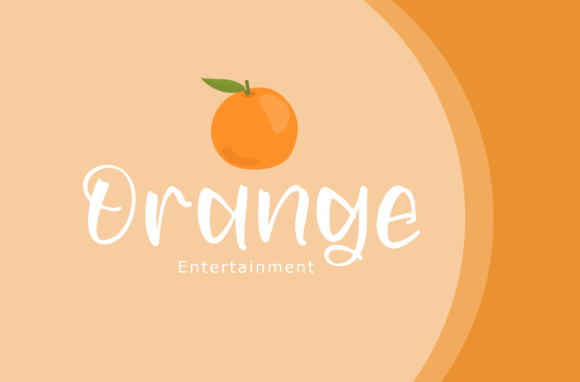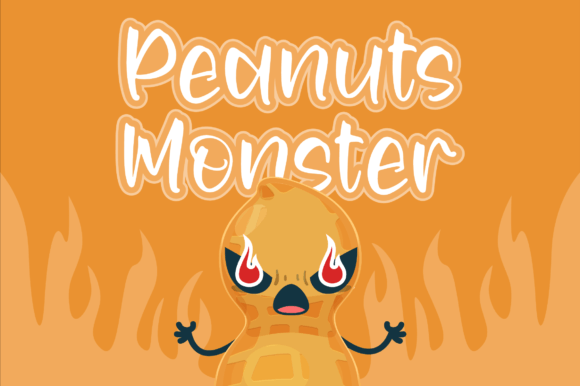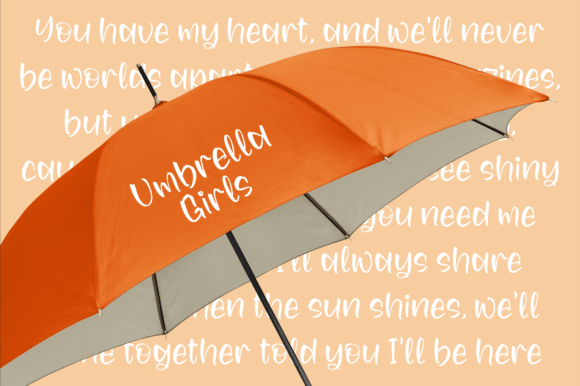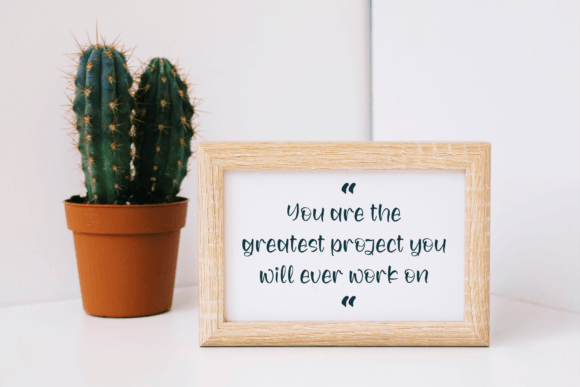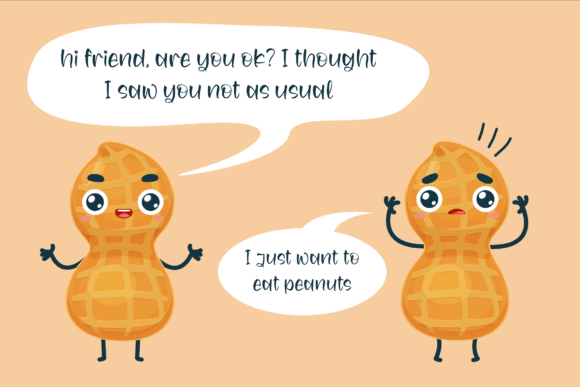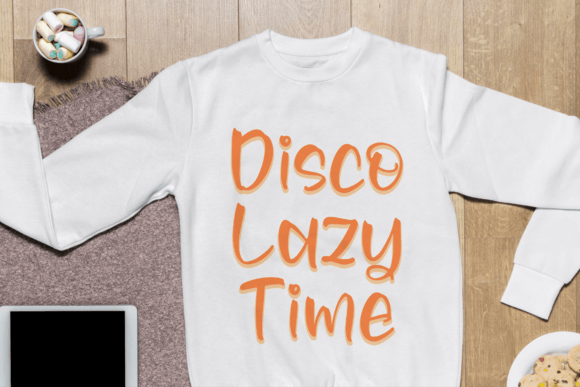
Introduction to Kacang Disko Font
As designers, we’ve all been there – staring at a blank page, struggling to find the perfect font to bring our creative vision to life. It’s that moment when you need a font that’s not just functional, but also visually appealing and uniquely expressive. For those who crave that extra oomph in their designs, the Kacang Disko Font is a game-changer. This adorable handwritten font is designed to add a touch of whimsy and personality to any project, making it a valuable asset for designers looking to elevate their creative projects.
With its high-quality design and transparent background, the Kacang Disko Font is perfect for a wide range of applications, from logos and branding projects to homeware designs, product packaging, and more. And the best part? It’s available for free download, making it an excellent design resource for creatives on a budget.
Key Features of Kacang Disko Font
- High-quality font with a unique, creative design suitable for various projects.
- Comes with a transparent background, making it ideal for use on any color or background.
- Font size: 1,000 characters, with a wide range of glyphs to accommodate various languages and writing systems.
- Resolution: Optimized for high-resolution displays, ensuring crisp and clear text rendering.
- Unique characteristics: The Kacang Disko Font features a fun, playful style, making it perfect for creative projects, such as branding, packaging, and advertising.
Honest Review: Kacang Disko Font
As a designer, I’m always on the lookout for unique and high-quality design resources to elevate my creative projects. Recently, I stumbled upon the Kacang Disko Font, and I must say it’s been a game-changer for me.
What works well: ✨ The font’s quirky and playful design makes it perfect for adding a touch of whimsy to my projects. The transparent background option is also a plus, as it allows me to easily layer it with other design elements. Plus, it’s a free download, which is always a bonus!
- Unique and quirky design
However, there are a few limitations: ⚠️ The font may not be suitable for more formal or professional projects, as it’s quite playful and eye-catching. Additionally, the font’s bold and colorful design may not be compatible with all design software or systems.
Overall, I’m thoroughly impressed with the Kacang Disko Font. It’s a great design resource that’s perfect for creative projects that require a touch of personality and whimsy. If you’re looking for a unique font to add some flair to your designs, I highly recommend giving it a try!
For the best results, use the Kacang Disko Font on a transparent background to create a striking design. Experiment with different font sizes and styles to add visual interest to your design. You can also combine the font with other design resources, such as images and shapes, to create a unique and eye-catching design.
The Kacang Disko Font is perfect for designing creative projects, such as social media graphics, posters, and flyers. Its high-quality design and transparent background make it an ideal choice for designers who want to add a professional touch to their work.